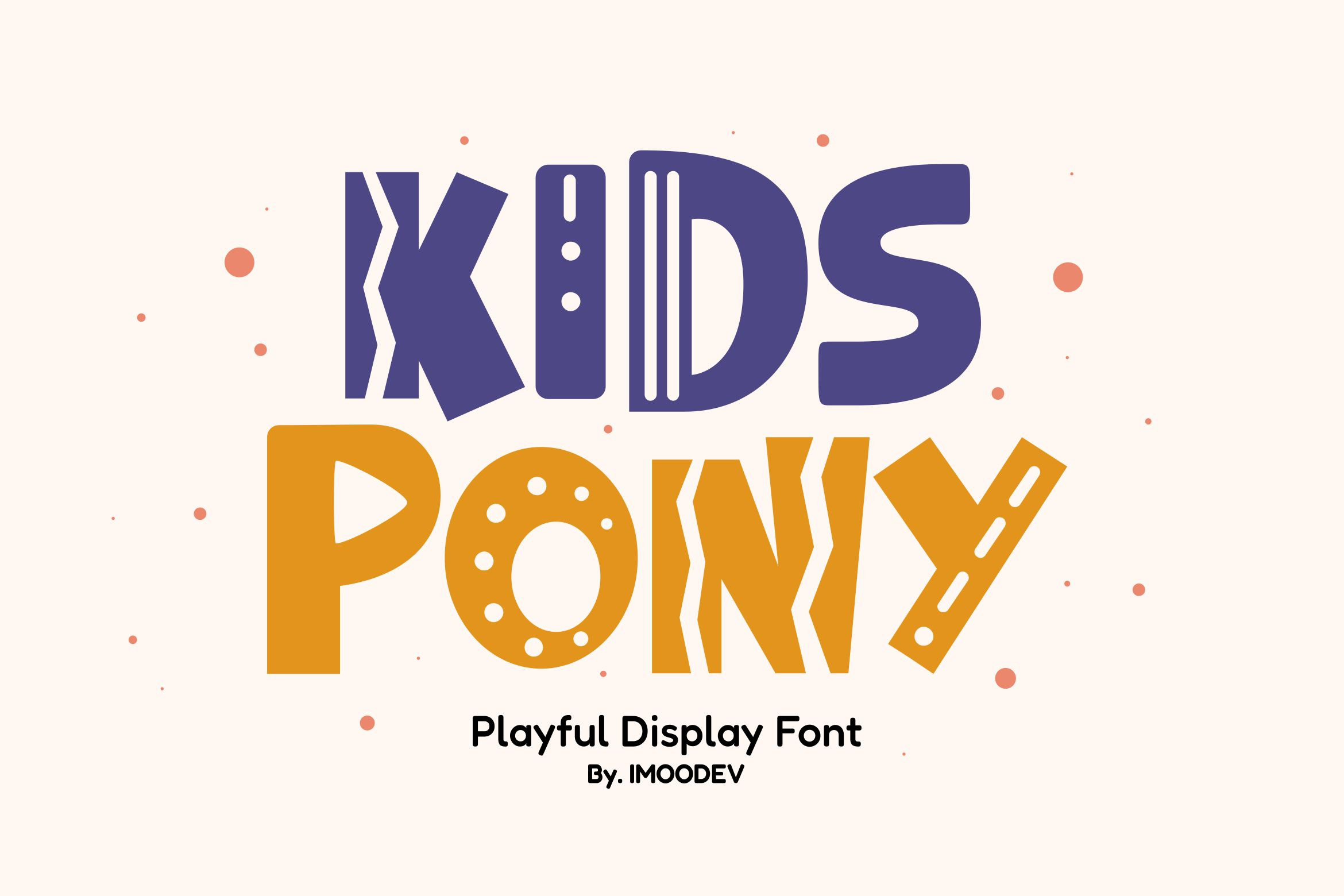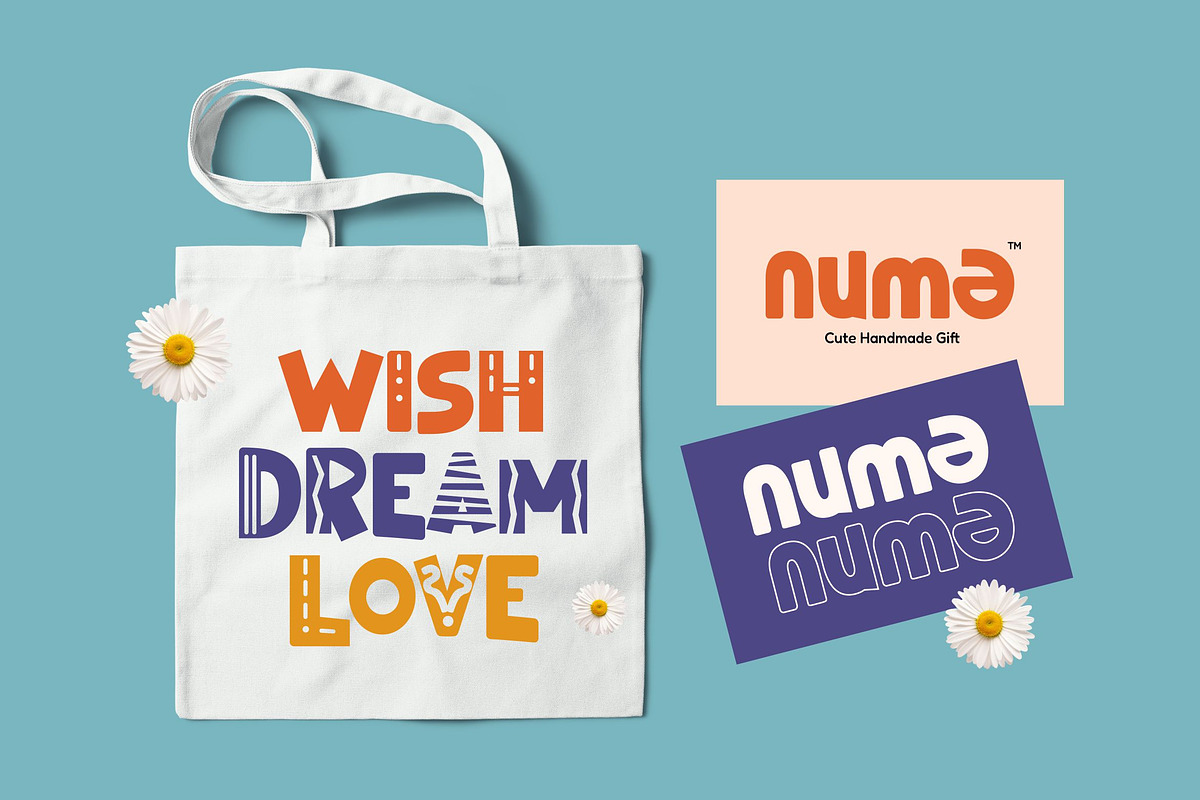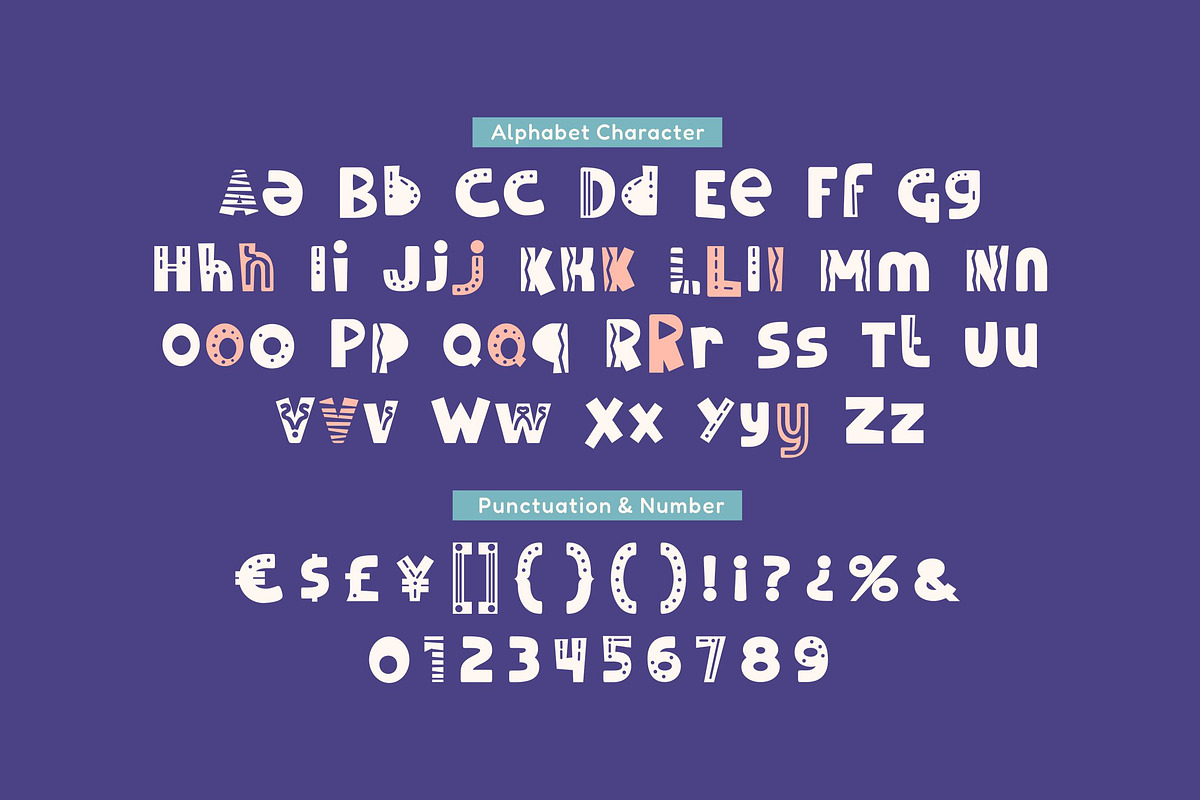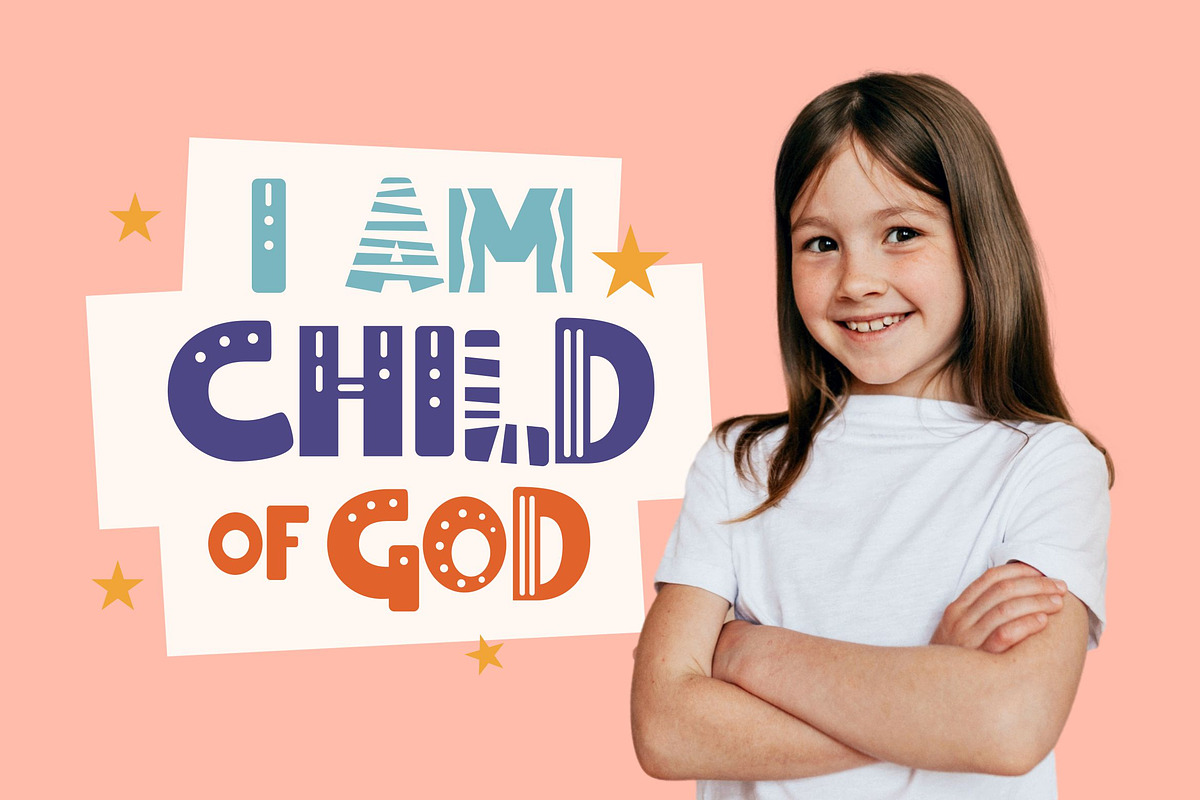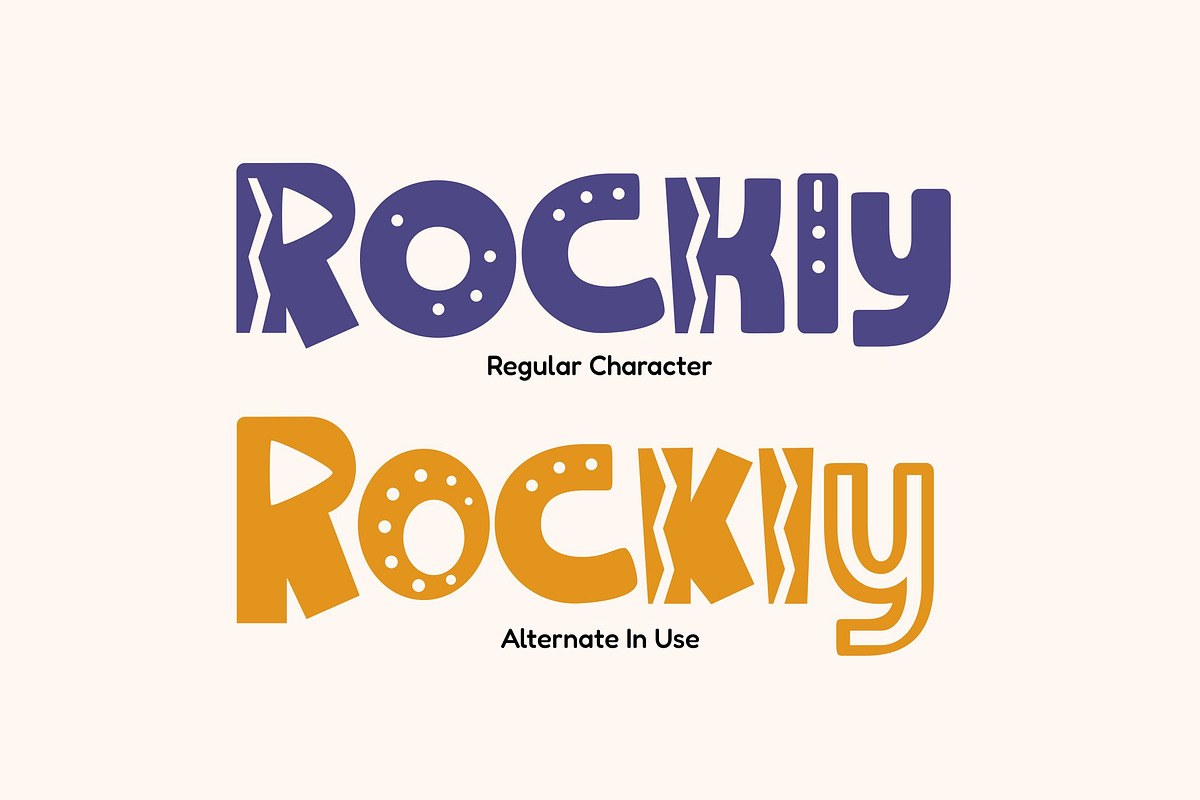
Kids Pony - Playful Display Font
Kids Pony is a delightful display font in which every letter carries its own charm, some dotted, some striped, zigzagged, or adorned with playful patterns that mimic spontaneity, resembling paper cut out art or doodles from a child's sketchbook. With its uneven shapes and a variety of alternate characters, this font brings a lively and cheerful tone to any child-themed project.
This font is perfect for kids products, educational materials, playful branding, and party themed graphics. Whether you're designing tote bag, toy label, or storybook title.
- Uppercase and Lowecase Characters.
- Numerals and Punctuations.
- Alternates and Ligatures.
- Multilingual Support.